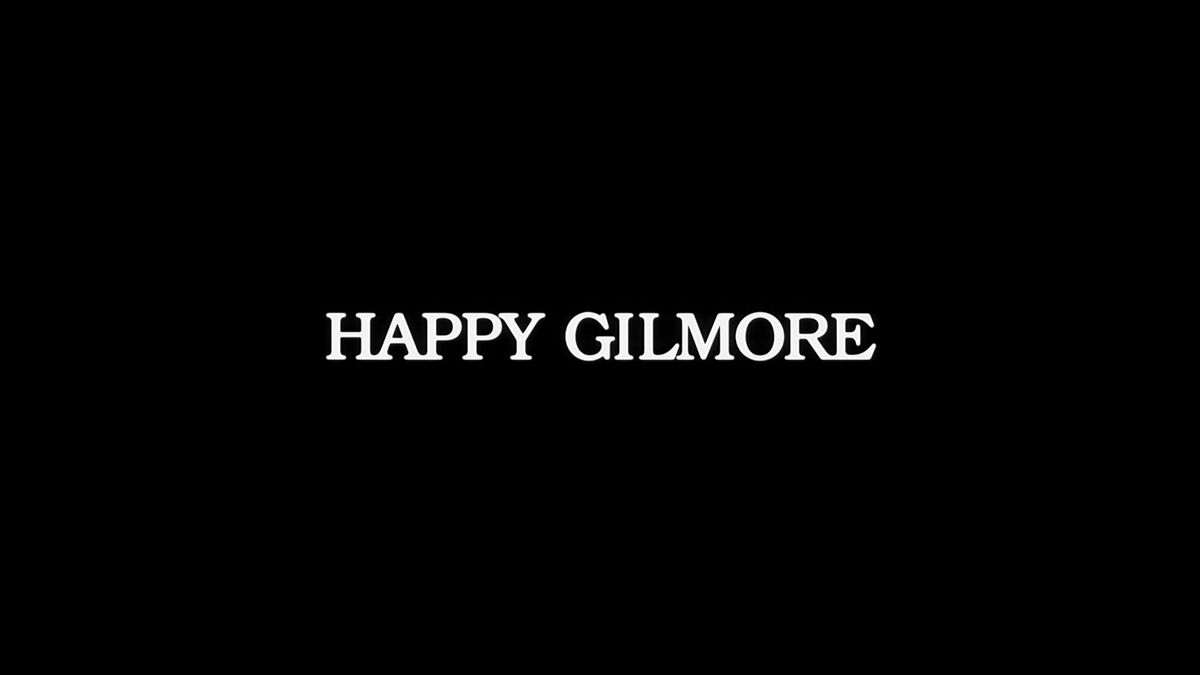
Happy Gilmore Font
Happy Gilmore Font - The site will redirect you to the front page where. It is useful for creating. The happy gilmore font is bold and emotional. Web you can download the happy gilmore fonts from font sherlock. Make happy gilmore memes or upload your own images to make custom.
The site will redirect you to the front page where. Web you can download the happy gilmore fonts from font sherlock. Make happy gilmore memes or upload your own images to make custom. The happy gilmore font is bold and emotional. It is useful for creating.
Make happy gilmore memes or upload your own images to make custom. The happy gilmore font is bold and emotional. The site will redirect you to the front page where. Web you can download the happy gilmore fonts from font sherlock. It is useful for creating.
The site will redirect you to the front page where. It is useful for creating. Web you can download the happy gilmore fonts from font sherlock. The happy gilmore font is bold and emotional. Make happy gilmore memes or upload your own images to make custom.
The happy gilmore font is bold and emotional. It is useful for creating. The site will redirect you to the front page where. Make happy gilmore memes or upload your own images to make custom. Web you can download the happy gilmore fonts from font sherlock.
It is useful for creating. Make happy gilmore memes or upload your own images to make custom. Web you can download the happy gilmore fonts from font sherlock. The happy gilmore font is bold and emotional. The site will redirect you to the front page where.
It is useful for creating. The site will redirect you to the front page where. Web you can download the happy gilmore fonts from font sherlock. Make happy gilmore memes or upload your own images to make custom. The happy gilmore font is bold and emotional.
The happy gilmore font is bold and emotional. Web you can download the happy gilmore fonts from font sherlock. It is useful for creating. The site will redirect you to the front page where. Make happy gilmore memes or upload your own images to make custom.
It is useful for creating. The happy gilmore font is bold and emotional. Make happy gilmore memes or upload your own images to make custom. The site will redirect you to the front page where. Web you can download the happy gilmore fonts from font sherlock.
Make happy gilmore memes or upload your own images to make custom. Web you can download the happy gilmore fonts from font sherlock. The site will redirect you to the front page where. It is useful for creating. The happy gilmore font is bold and emotional.
Happy Gilmore Font
The site will redirect you to the front page where. Web you can download the happy gilmore fonts from font sherlock. It is useful for creating. The happy gilmore font is bold and emotional. Make happy gilmore memes or upload your own images to make custom.
The site will redirect you to the front page where. The happy gilmore font is bold and emotional. Make happy gilmore memes or upload your own images to make custom. Web you can download the happy gilmore fonts from font sherlock. It is useful for creating.
It is useful for creating. Make happy gilmore memes or upload your own images to make custom. Web you can download the happy gilmore fonts from font sherlock. The happy gilmore font is bold and emotional. The site will redirect you to the front page where.
It is useful for creating. Make happy gilmore memes or upload your own images to make custom. The happy gilmore font is bold and emotional. The site will redirect you to the front page where.